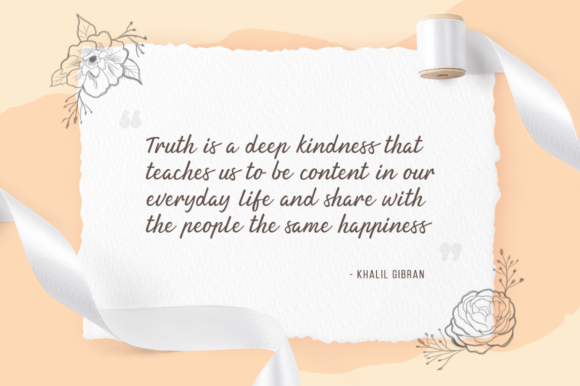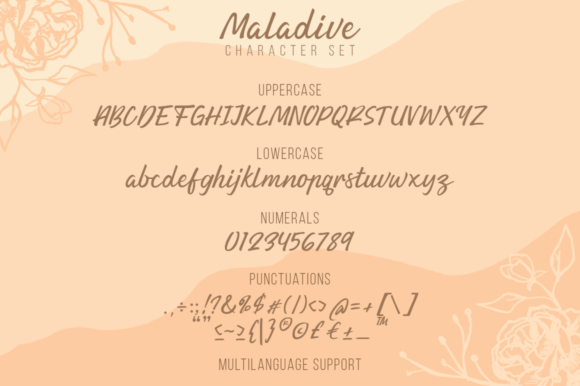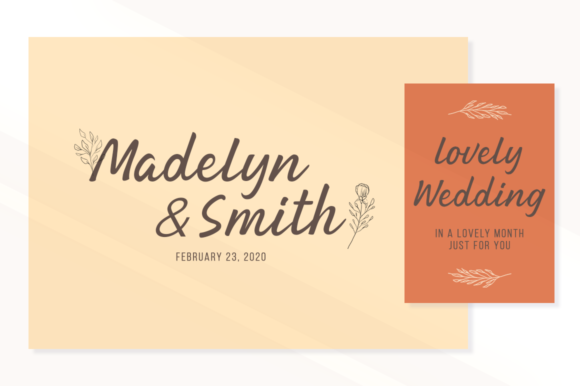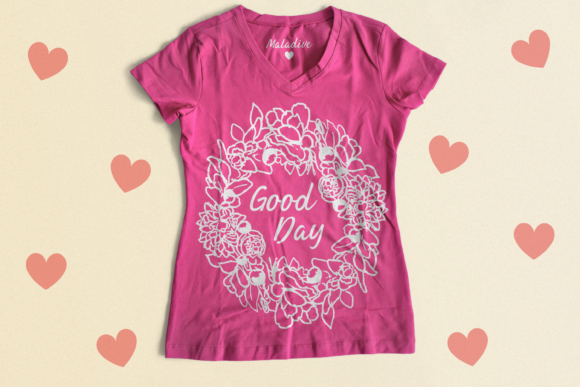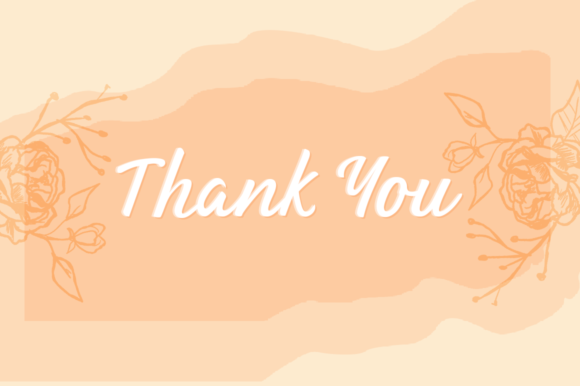
Maladive Font
About Maladive Font
Maladive is a modern script style with a combination of clean and simple touch. It is perfectly suited for a wide variety of projects!